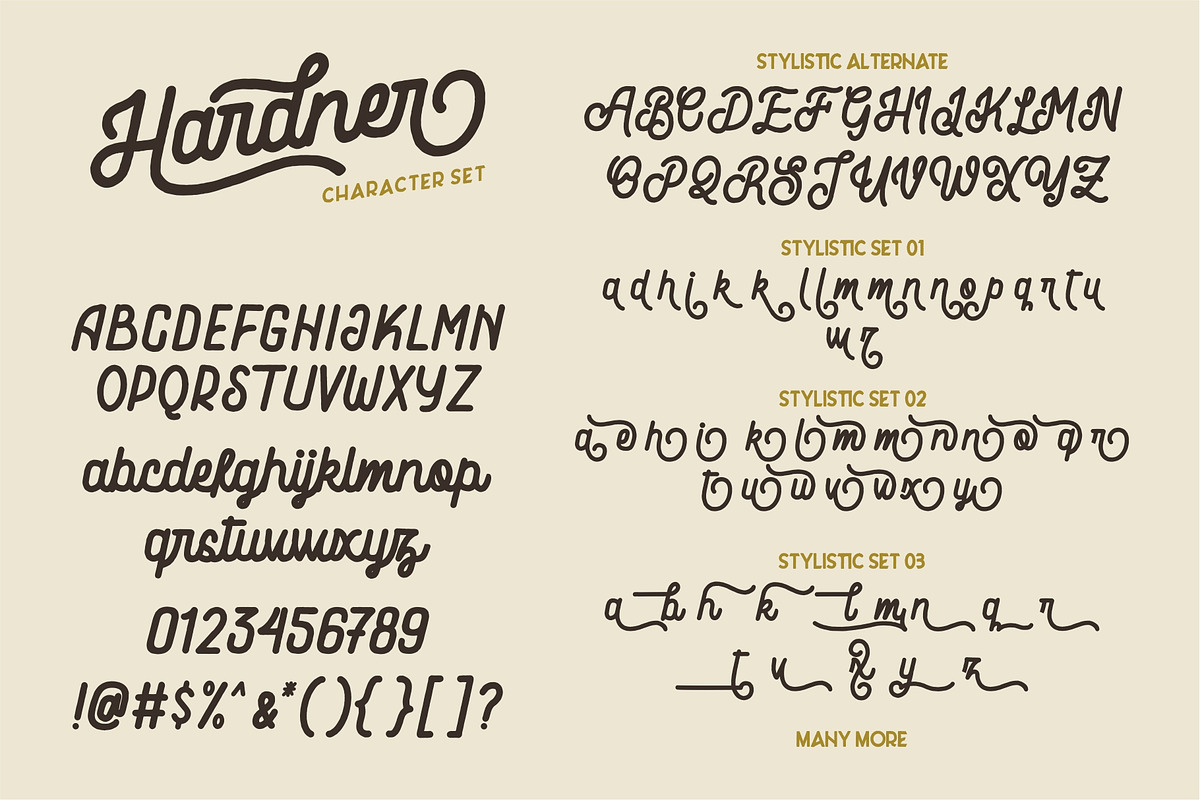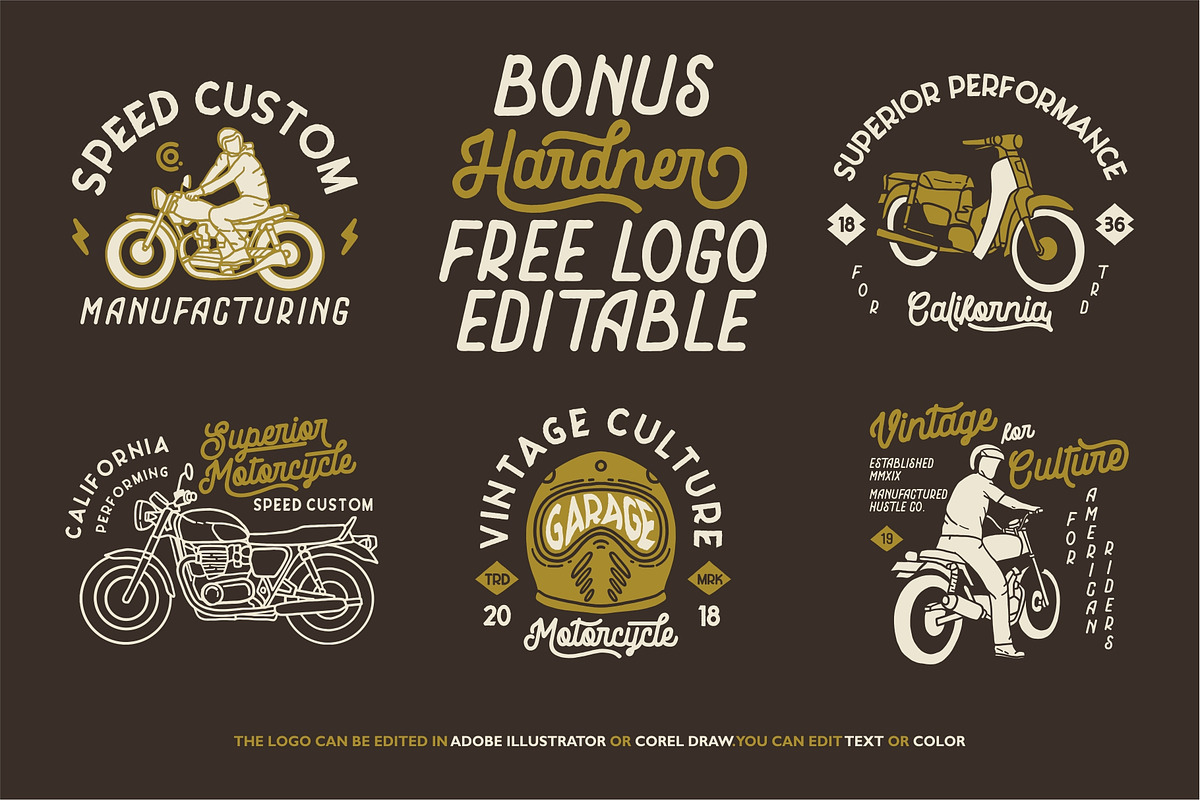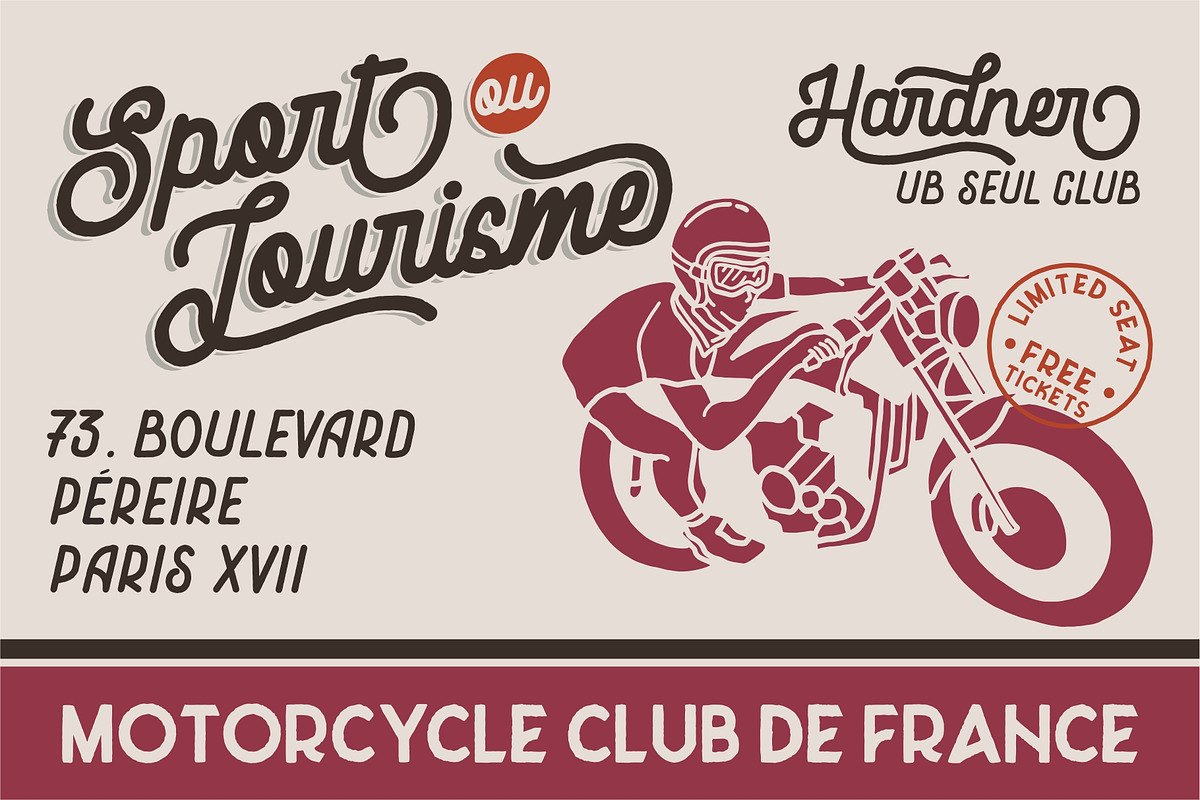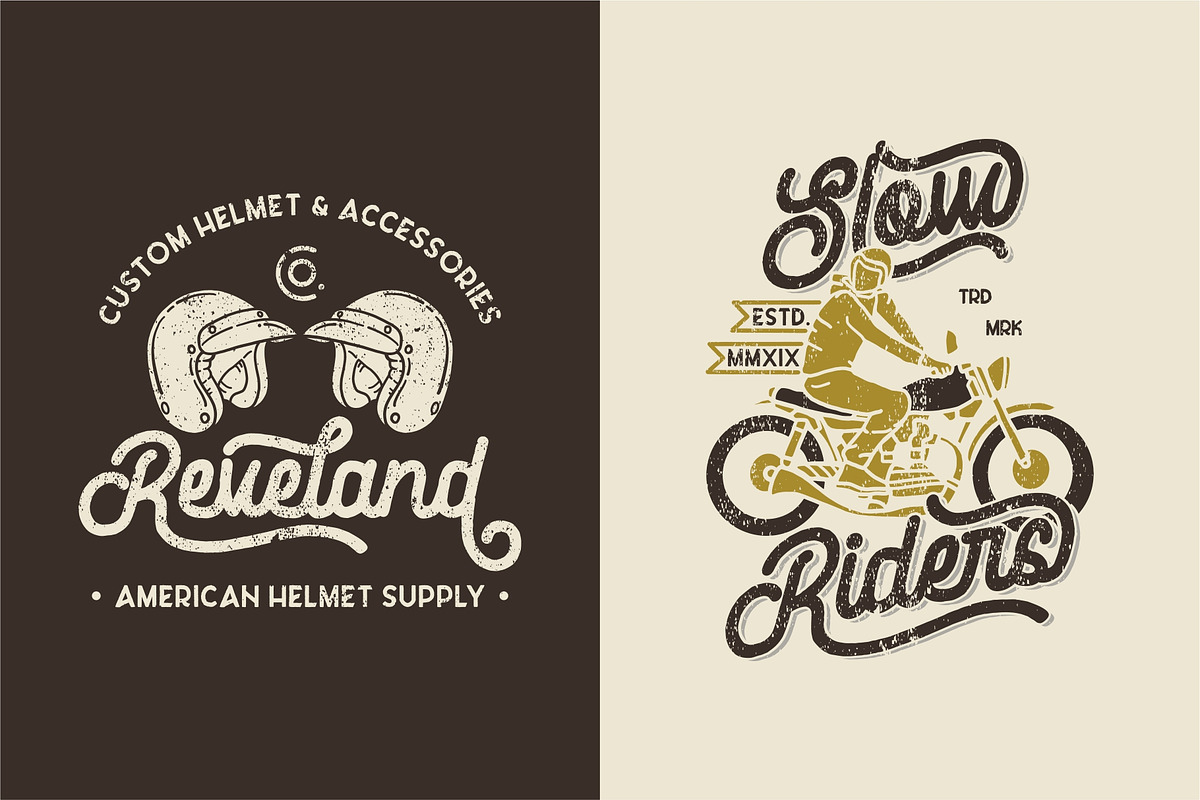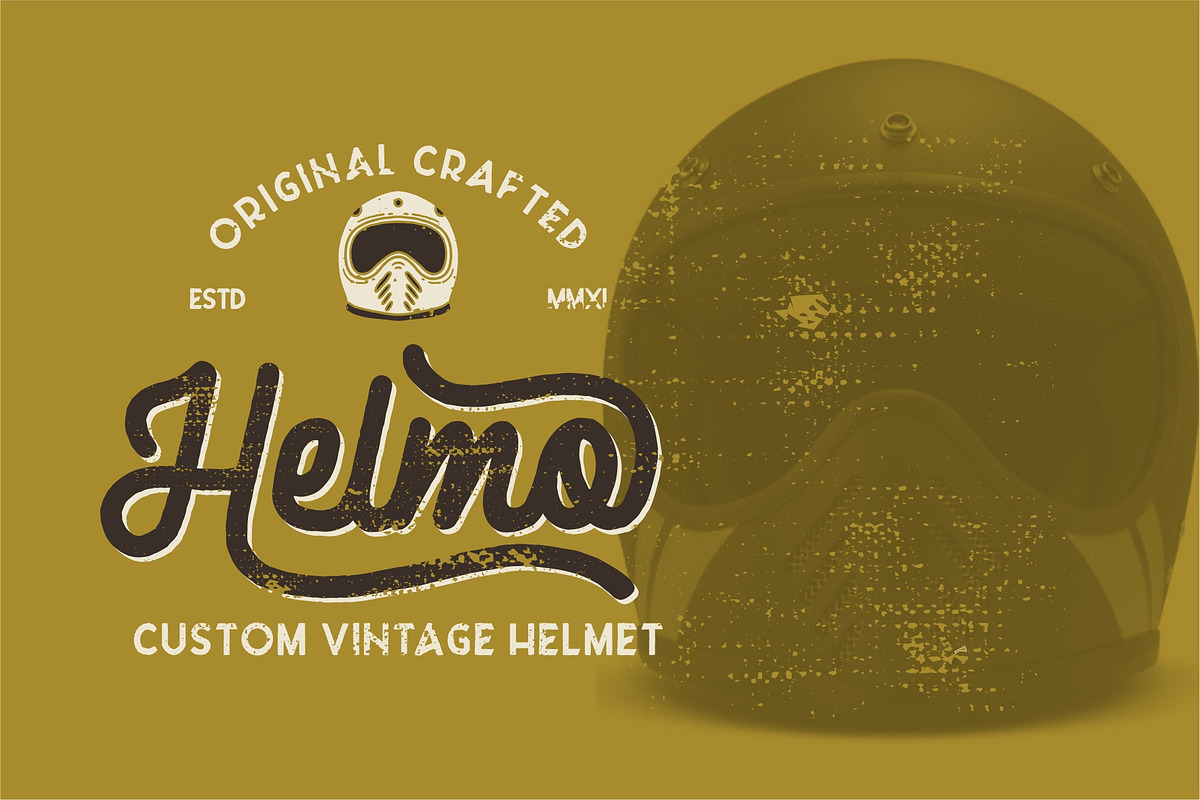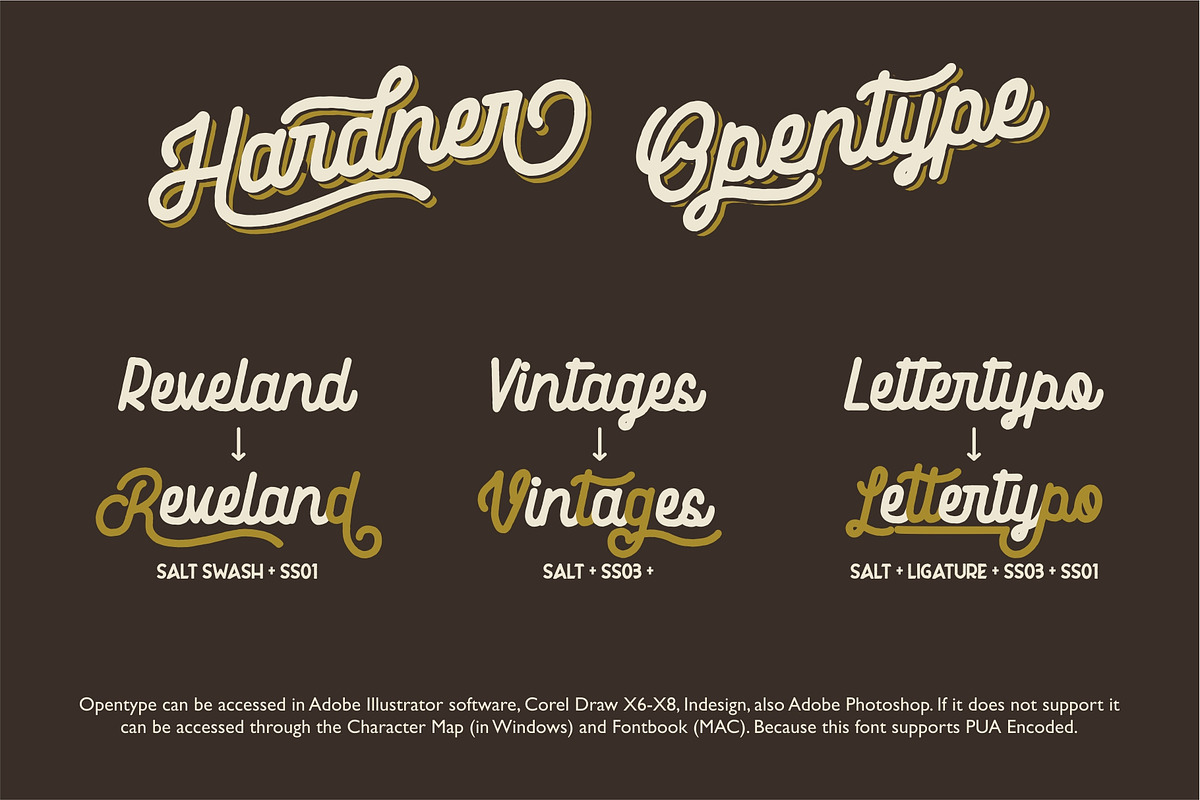
Hardner - Retro Fonts
HARDNER born from inspiring vintage motorcycle stlye. And this fonts is handmade modern vintage monoline display typefaces, available with different opentype style characther and paired font with RIBORN Three (Included FREE on this product).
Versatile for many project you needed, like a logo type, handlettering, branding, label, t-shirt design, poster and many more.
There are more than 400+ glyphs in the font including Stylistic sets, Ligatures, etc. OpenType features with Stylistic Alternates & Stylistc Set in some characters that allows you to mix and match pairs of letters to fit your design. To access the alternate glyphs, you need a program that supports OpenType features such as Adobe Illustrator CS and Adobe Indesign.
Multilingual characters (support for 23 languages): Afrikaans Albanian Catalan Croatian Czech Danish Dutch English Estonian Finnish French German Hungarian Icelandic Italian Norwegian Polish Portugese Slovak Slovenian Spanisch Swedish Zulu